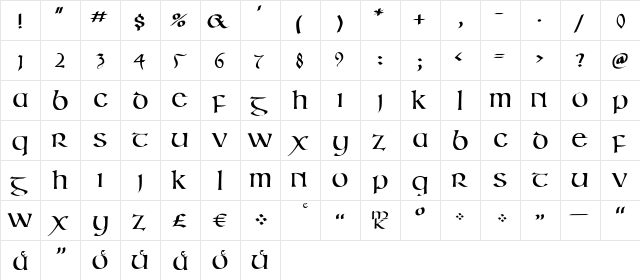
IrishUnciAlphabet Regular Font Preview
IrishUnciAlphabet Regular
IrishUnciAlphabet Regular Font Details
Design Context for IrishUnciAlphabet Typeface
IrishUnciAlphabet is a composed and adaptable typeface that performs quietly and consistently across a wide range of design contexts.